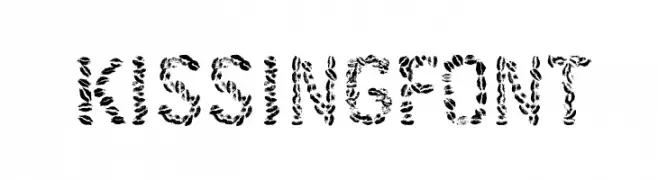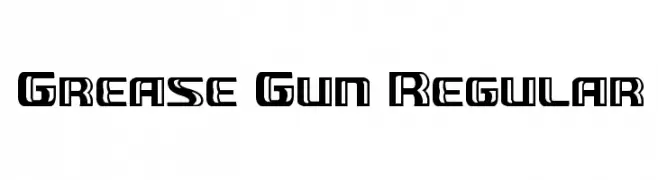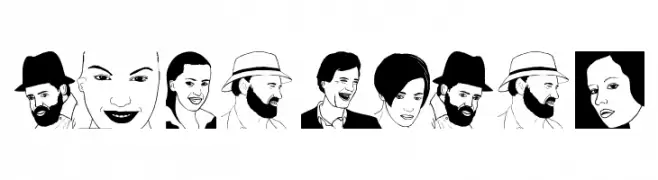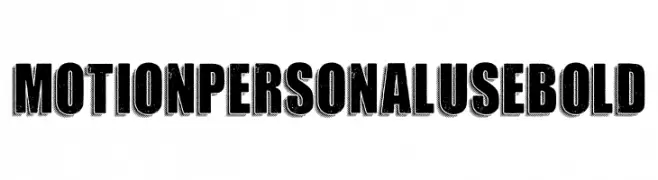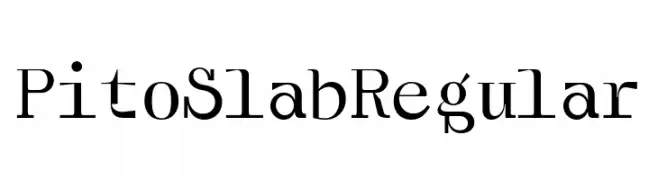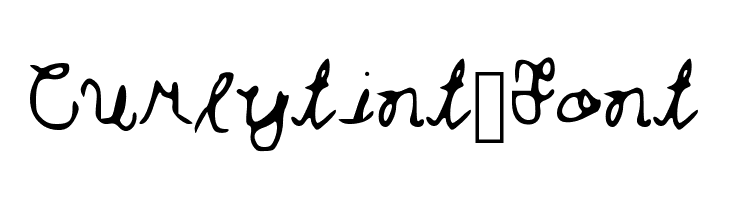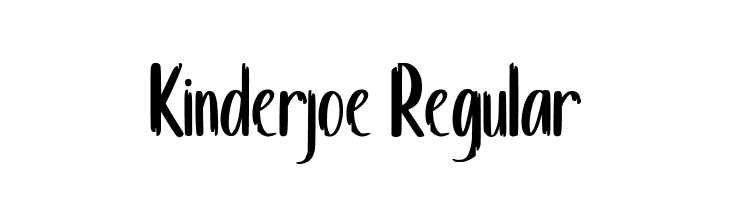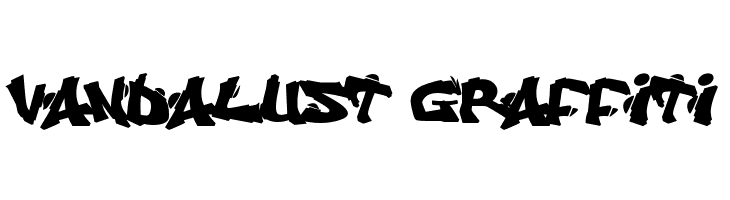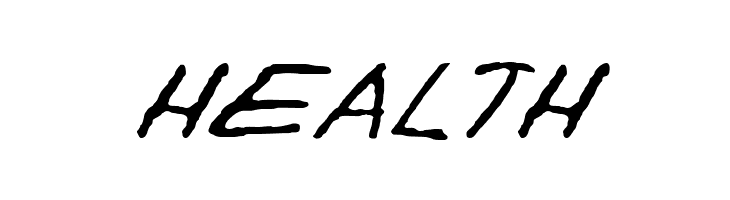
A decorative font with a textured, playful design.
A bold, industrial font with geometric, block-like characters.
A playful, informal handwritten font with irregular strokes and a whimsical appearance.
An artistic and decorative font filled with intricate illustrations.
Decorative font with face illustrations.
A bold, distressed decorative font with a vintage, textured style.
A bold, italic, and distressed font with an expanded width and dynamic style.
A robust slab serif font with strong, rectangular serifs and consistent stroke width.
An elegant, cursive script font with fluid, interconnected letters.
A modern decorative font with geometric shapes and stylish curves.